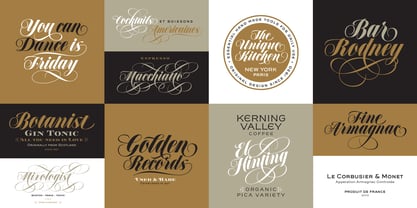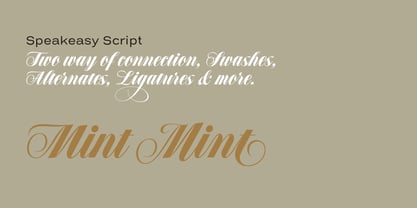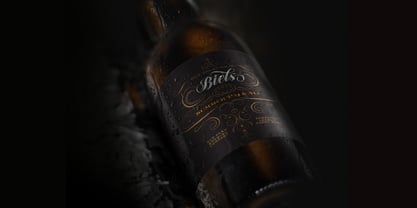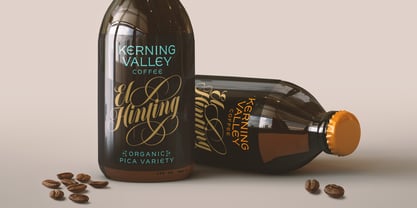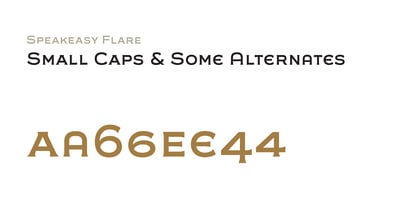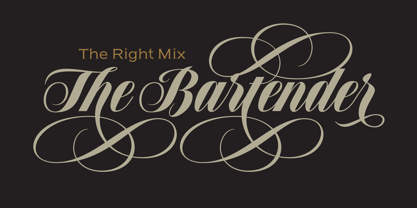
Speakeasy Font
This Speakeasy Font is perfect for vintage cocktail bar branding, prohibition-era themed restaurants, classic whiskey labels, retro nightclub materials, jazz club signage, 1920s event promotions, underground venue graphics, artisan distillery packaging, vintage casino designs, and clandestine entertainment communications.
What makes this Speakeasy Font exciting is its authentic prohibition-era character that captures the secretive glamour and underground sophistication of 1920s speakeasy culture. The font features bold, clandestine letterforms with vintage appeal that evoke the hidden elegance and rebellious spirit of America's most fascinating underground era. Its secretive character and vintage authenticity make it ideal for brands seeking to communicate mystery, exclusivity, and sophisticated rebellion in entertainment and hospitality markets.
The Speakeasy Font family includes regular, medium, and bold weights with art deco alternates and prohibition-era variants. This comprehensive vintage font family provides designers with clandestine typographic tools to create mysterious compositions while maintaining the underground character essential for vintage entertainment and exclusive hospitality brand communications.
Cocktail bars and vintage entertainment venues consistently choose Speakeasy Font Free Download for projects requiring authentic prohibition appeal and underground sophistication. This font's distinctive clandestine character perfectly captures the secretive glamour and exclusive atmosphere that resonate with audiences who appreciate vintage cocktail culture and sophisticated entertainment experiences.
The mysterious construction of Speakeasy Font showcases boldly crafted letterforms with prohibition-era proportions that ensure exceptional vintage appeal across all underground applications. Its clandestine appearance and art deco details create memorable impressions while maintaining the readability necessary for effective vintage brand communication and entertainment venue materials.
Professional designers appreciate how Speakeasy Font brings immediate vintage authenticity and underground sophistication to brand communications. The font's prohibition nature allows establishments to communicate exclusivity and vintage glamour while maintaining the professional quality necessary for effective positioning in upscale entertainment and craft beverage markets.
The timeless appeal of Speakeasy Font makes it particularly effective for brands emphasizing vintage cocktails, underground culture, and prohibition-era sophistication. Its mysterious character resonates strongly with audiences who appreciate craft cocktails, vintage entertainment, and establishments that celebrate the glamorous rebellion of speakeasy culture.
Whether developing branding for craft cocktail lounges or creating materials for vintage-themed entertainment venues, Speakeasy Font Free Download provides the clandestine typographic foundation that underground brands need to communicate their vintage authenticity, mysterious allure, and the sophisticated rebellion that defines speakeasy culture and prohibition-era excellence.